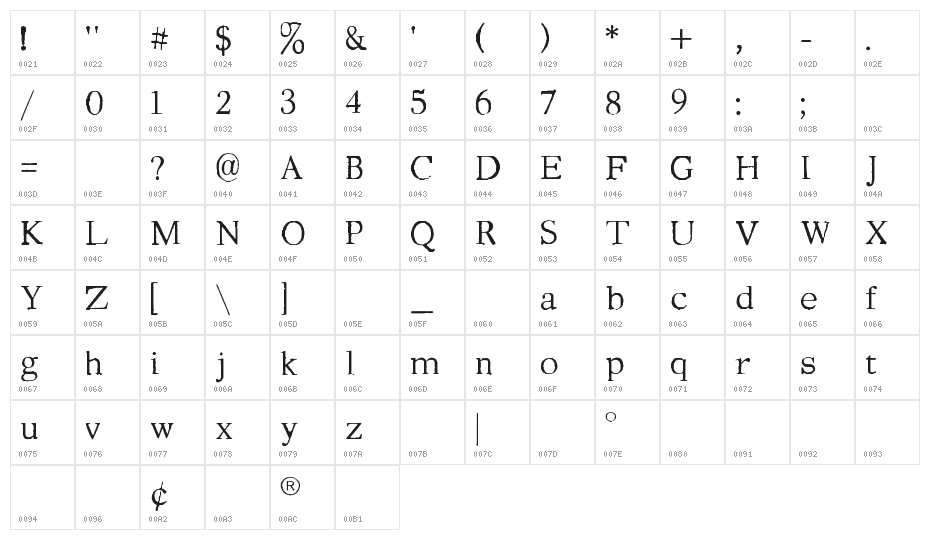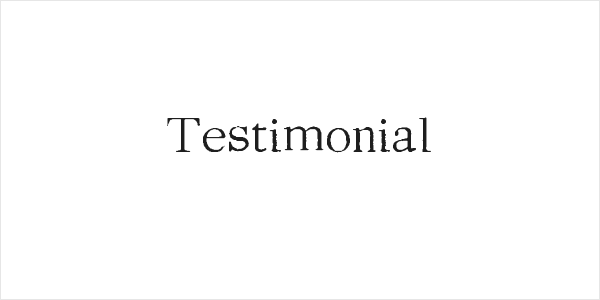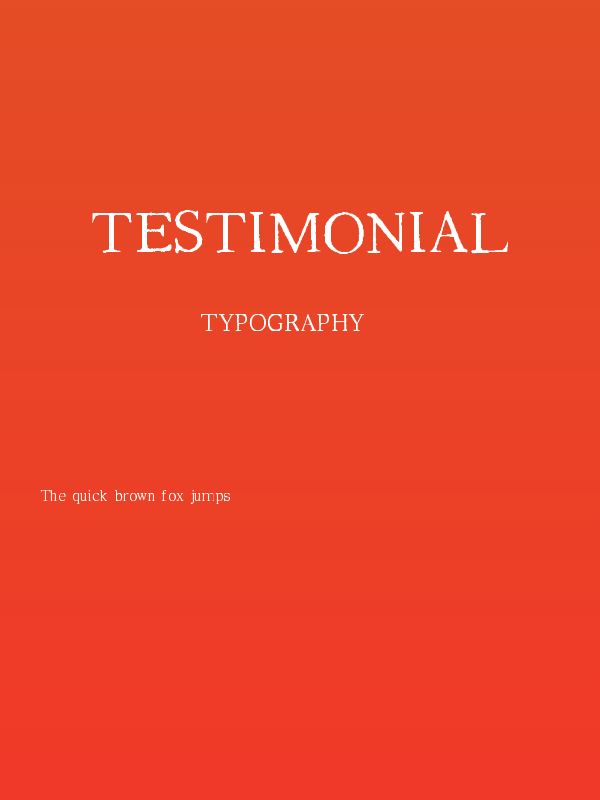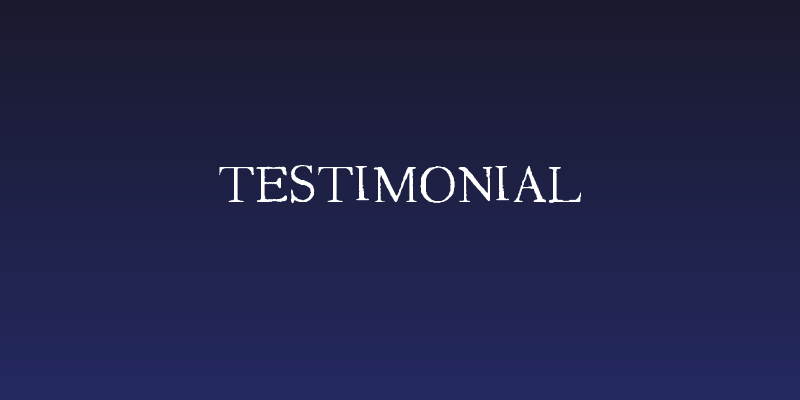
Testimonial Font
Testimonial Description
This font exhibits a classic serif style with distinct, sharp serifs and a slightly rough texture that gives it a vintage feel. The uppercase letters are bold and commanding, while the lowercase letters maintain a consistent style with a touch of elegance. Numbers are clear and well-defined, matching the overall aesthetic. Special characters are crafted with attention to detail, ensuring readability and style consistency. The font's design is reminiscent of traditional print, making it suitable for projects that require a touch of sophistication and historical charm.
Overall StyleVintage
Proposed ProjectsIdeal for book covers, historical documents, invitations, and branding that requires a classic touch.